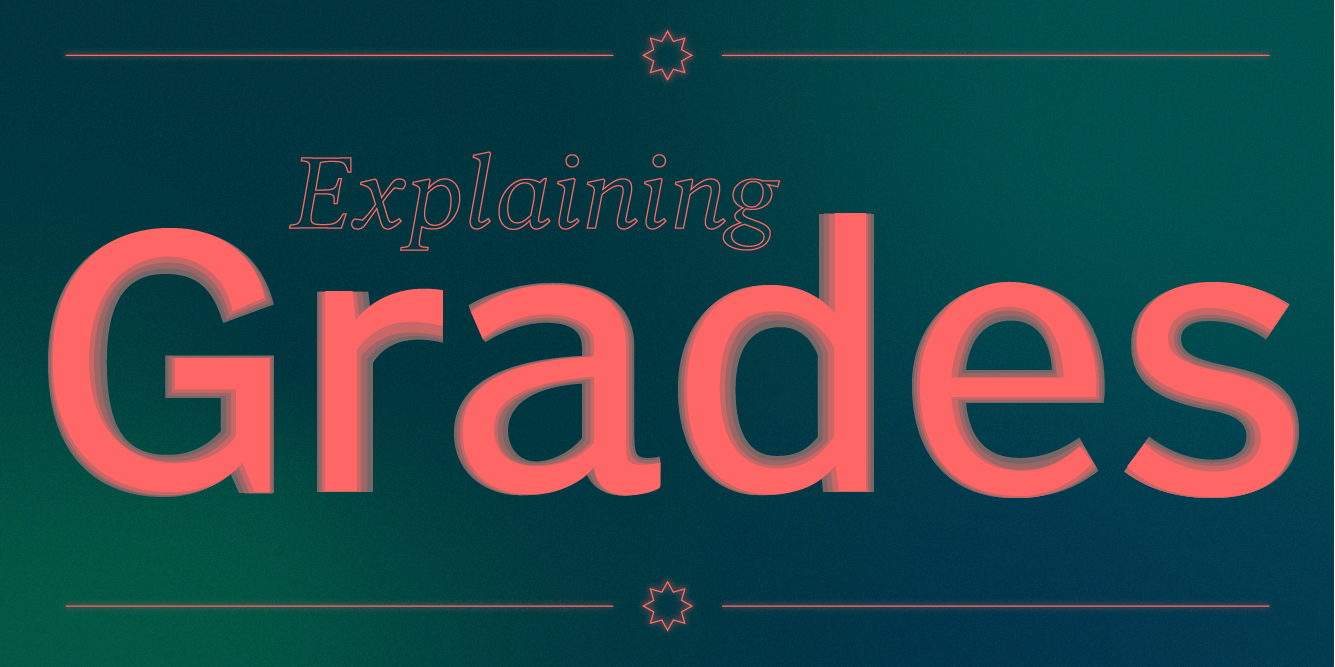
First, what the heck is grade? Fair question. It’s like weight, except it doesn’t add any length. Yves Peters explained the difference between grade and weight best in his article on Richard Lipton’s Bennet:
Weights are meant to create differences between type styles, to allow readers to easily distinguish one type style from another. (Think of a bold word in a paragraph of text set in a lighter weight.) Grades, however, are designed to do the exact opposite: they make type in different environments appear similar. Their weight increases in a different way to preserve the overall proportions and contrast of the characters.
From Yves Peters’s article on Bennet: The weight of letterforms increases in a fundamentally different way in grades than in weights. On the left, the grades one through four of Bennet Text; on the right the Regular, SemiBold, and Bold weights of Bennet Text Two, superimposed.
As mentioned, grades were originally developed for print to accommodate various qualities of paper stock. Absorbent newsprint, for instance, is known for its ink spread. Anyone who has letterpress printed, too, knows that the inked impression on the page always looks thicker and heavier than the face of the type itself. On the flip side, high-quality, glossy paper is more accurate to the type design, with very little ink spread.
From Yves Peters’s article on Bennet: In the top row of this simulation, you can see that Bennet Text Grade 1 is noticeably lighter than Bennet Text Grade 4. The bottom row shows how, due to ink spread, Grade 1 printed on absorbent paper becomes as dark as Grade 4 printed on high-quality glossy paper.
To make up for this—and to make text appear the same across media—type designers developed grades. One well-known example is the Poynter series of fonts designed by Tobias Frere-Jones, published by Font Bureau and available from Type Network.
In 2002, following a study involving The Washington Post, St. Petersburg Times, the Kinston, N.C. Free Press, and papers from Germany, Canada, and Switzerland, the Poynter Institute commissioned a new typeface with four grades, meant to solve the troubles of contemporary newspaper publishers.
Based on Hendrik van den Keere’s Dutch types of the 17th-century, the Poynter type family combined “comfortable familiarity, economy, and readability," according to international news organization consultant Ron Reason.
The grades one through four of Poynter Agate regular.
The appeals for print designers might be obvious, but digital designers—especially those working in user interface and user experience design—have as much to gain from grades. True, there is no ink-spread on a screen; however, in place of that mechanical phenomenon are a few optical illusions resulting from screen technology and varied resolutions.
Text at small sizes can be harder to read when the black and white are reversed. The white tends to weaken slightly as the contrast switches on the details of letters. Experiment with this example
Grades, used even in small amounts, can add the strength of the text back in with no change to format. Experiment with this example
Thanks to additive color (screens produce light, as opposed to printed pages which reflect it), black isn’t usually anywhere close to black, which has odd effects on letters. As written by David Berlow, “Text at small sizes [on screens] can be harder to read when the black and white are reversed. The white [strokes] tend to weaken slightly as the contrast switches on the details of letters.” With the rising popularity of dark modes—just in the past few years has YouTube, Facebook, Windows, and Instagram added them—designers need to perfect the art of setting type in reverse.
To satisfy users whose screens have a lower resolution, some designers might turn to typefaces with optical sizes, substituting low-res for small. While this approach solves most of the issues associated with pixelated screens, it creates new issues in its place. Fonts designed with optical sizes often sacrifice nuance and character at the smaller end of the spectrum—those details would be lost in smaller printed sizes, so they’re enlarged and made more obvious. Using a typeface with multiple grades, on the other hand, allows the design to remain highly legible on low resolution screens while maintaining character and detail. Some typefaces have both optical sizes and grades, proving a robust toolkit for designers confronted with this issue.
From Yves Peters’s article on Bennet: This simulation shows how text grades could adapt to changing ambient light to preserve legibility.
Finally, the prevalence of mobile experiences and the sensors afforded app developers has made possible typographic adjustments based on the environment of the reader. Ambient light and screen brightness, as examples, impact readability in the same way as paper quality. A dark screen or an overabundance of environmental light can reduce perceived contrast, as both dark text on a darkened background and glare have similar results on screens. Dynamically increasing the grade of your displayed typeface can alleviate these problems.